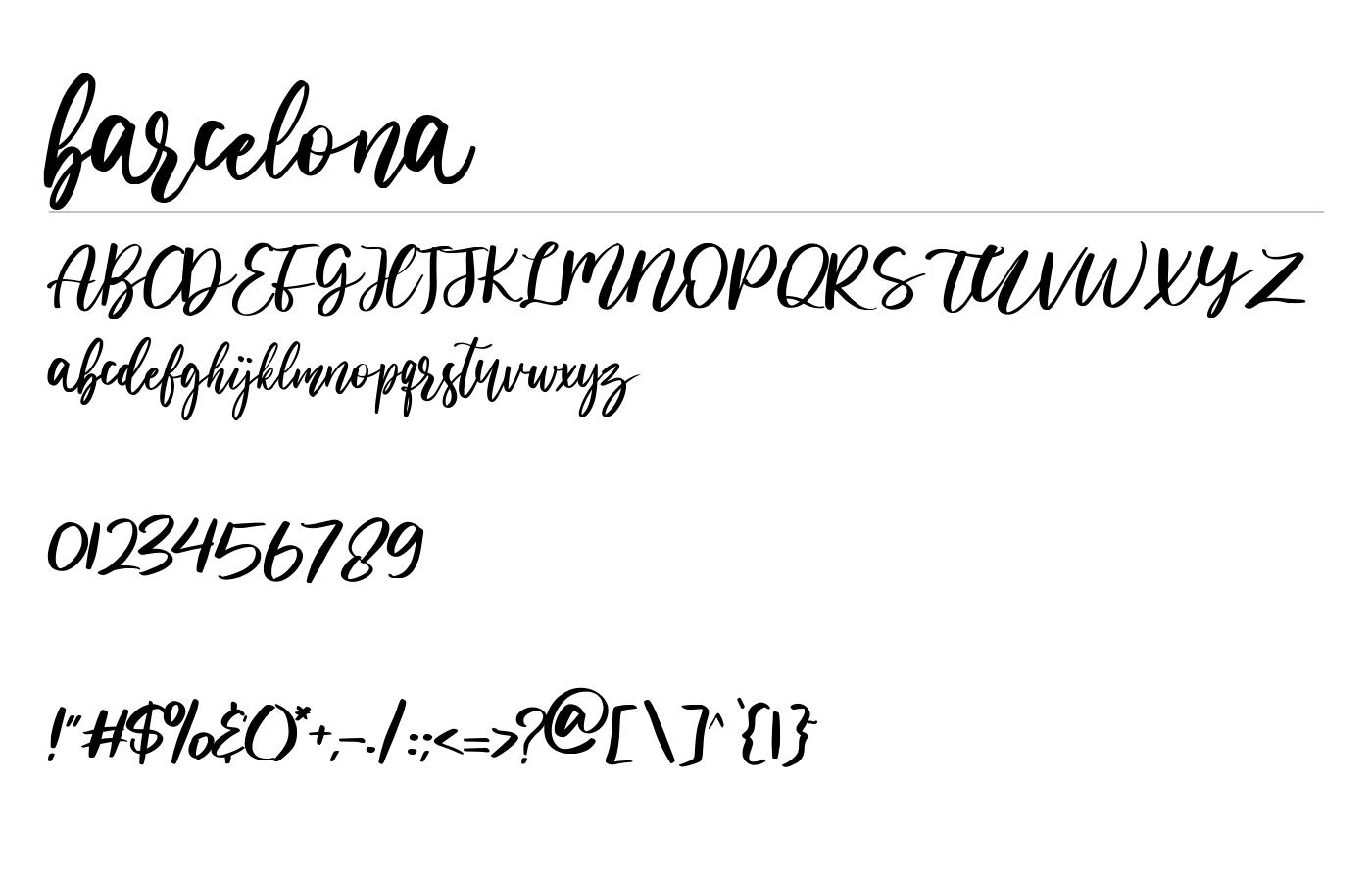
Barcelona Font is a lively and elegant script typeface with a natural hand-lettered feel, characterized by fluid, slightly slanted strokes and moderate contrast. It combines stylish uppercase letters with delicate, flowing lowercase forms, making it perfect for adding a personal and artistic touch to branding, invitations, and creative projects. This font works best in display settings where a warm, approachable, and crafted personality is desired.
Barcelona Font
About Barcelona Font